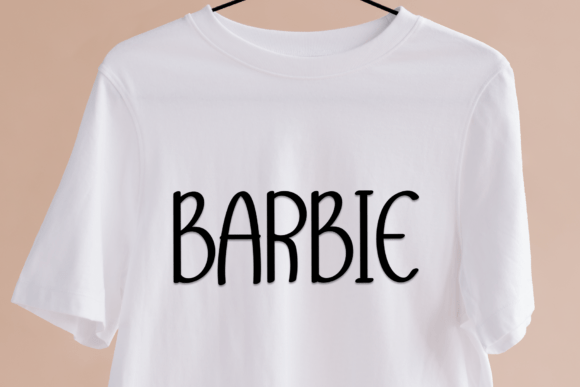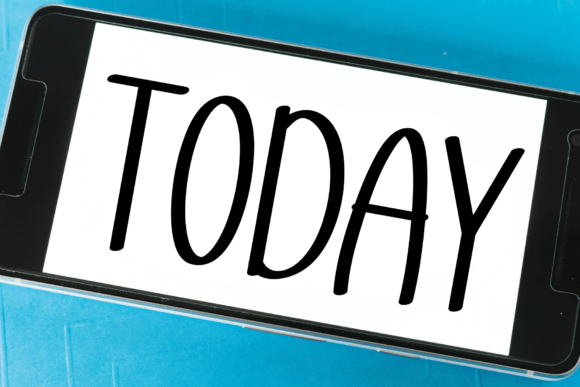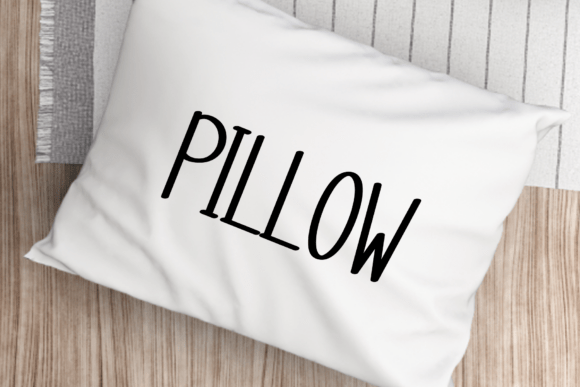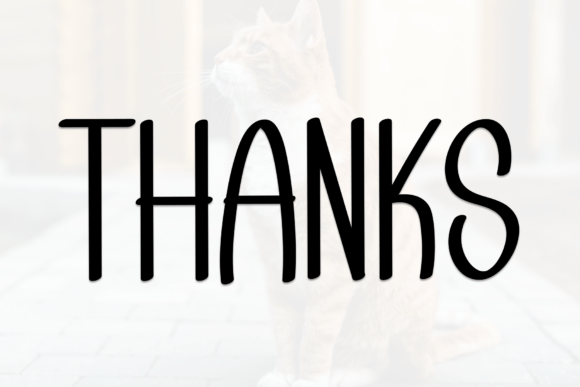
Introducing Everyday Font: The Charming Handwritten Font for Your Design Needs
Are you tired of using the same old fonts for your design projects? Look no further than Everyday Font, a charming handwritten font that is sure to add a touch of warmth and personality to your creations. With its smooth strokes and organic lines, Everyday Font is the perfect choice for designers and crafters looking to add a personal touch to their work.
The Characteristics of Everyday Font
Everyday Font is a unique and captivating font that is filled with a sense of heartfelt perfection. Its smooth strokes and organic lines evoke a relaxed atmosphere, making it perfect for a variety of design projects. The font’s charming and whimsical feel makes it ideal for use in:
- Branding: Add a personal touch to your brand’s identity with Everyday Font.
- Invitations: Create beautiful and unique invitations for special occasions.
- Social media graphics: Make your social media posts stand out with this eye-catching font.
Why Choose Everyday Font?
There are many reasons why Everyday Font stands out from the crowd. Here are just a few:
- Unique and charming: Everyday Font has a one-of-a-kind charm that will set your designs apart.
- Versatile: This font can be used for a wide range of design projects, from branding to social media graphics.
- Easy to read: Despite its whimsical feel, Everyday Font is easy to read and understand.
- High-quality: This font is designed with high-quality craftsmanship, ensuring that it will look great in any design.
How to Use Everyday Font in Your Designs
Using Everyday Font in your designs is easy. Here are a few tips to get you started:
- Pair it with other fonts: Everyday Font pairs well with a variety of other fonts, so feel free to experiment with different combinations.
- Use it for headings and titles: This font is perfect for headings and titles, where its unique charm can really shine.
- Experiment with colors: Everyday Font looks great in a variety of colors, so don’t be afraid to try out different options.
The Benefits of Using Handwritten Fonts
Handwritten fonts like Everyday Font have a number of benefits for designers and crafters. Here are just a few:
- Personal touch: Handwritten fonts add a personal touch to your designs, making them feel more unique and special.
- Emotional connection: Handwritten fonts can create an emotional connection with your audience, making your designs more relatable and engaging.
- Flexibility: Handwritten fonts can be used for a wide range of design projects, from formal to informal.
Everyday Font is a charming handwritten font that is sure to add a touch of warmth and personality to your designs. With its smooth strokes and organic lines, this font is perfect for a variety of design projects, from branding to social media graphics. Whether you’re a designer or crafter, Everyday Font is a great choice for anyone looking to add a personal touch to their work.